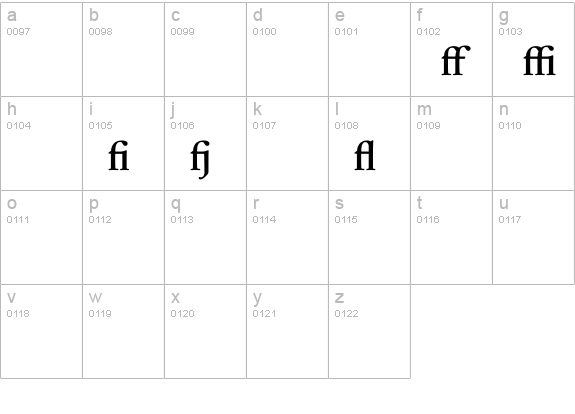
RenardNo1-RomanLig is a stunning typeface that boasts elegance and sophistication. With its sleek and refined design, this font is perfect for adding a touch of luxury to any project. The clean lines and delicate curves of RenardNo1-RomanLig create a sense of balance and harmony, making it a versatile choice for both headings and body text. This font exudes a timeless charm that is reminiscent of classic Roman typography, while also incorporating contemporary elements. The slender letterforms and subtle serifs give RenardNo1-RomanLig a sense of grace and poise, making it an ideal choice for high-end branding, editorial design, and luxury products. One of the most remarkable features of RenardNo1-RomanLig is that it is available for free download at FontsMarket.com. This means that designers and creatives can easily access and utilize this stunning font without any cost. Whether you are a professional graphic designer or a hobbyist, RenardNo1-RomanLig offers a high-quality font option that won't break the bank. Furthermore, RenardNo1-RomanLig is highly legible, ensuring that your message is conveyed with clarity and impact. Its versatility allows it to be used in a wide range of mediums, including print and digital applications. From elegant invitations to sophisticated logos, this font will elevate the visual aesthetics of any project it is used in. The attention to detail and craftsmanship of RenardNo1-RomanLig is apparent in every stroke. The carefully designed ligatures and alternate characters offer additional creative possibilities, allowing designers to add unique flourishes to their designs. This font truly embodies the perfect balance between traditional elegance and modern sophistication. In conclusion, RenardNo1-RomanLig is a stunning font that combines timeless elegance with contemporary design elements. Its versatility and legibility make it a perfect choice for a wide range of design projects. And the best part? It is freely available to download at FontsMarket.com, allowing designers to access this high-quality font without any cost. So why wait? Download RenardNo1-RomanLig today and elevate your design projects to new heights.